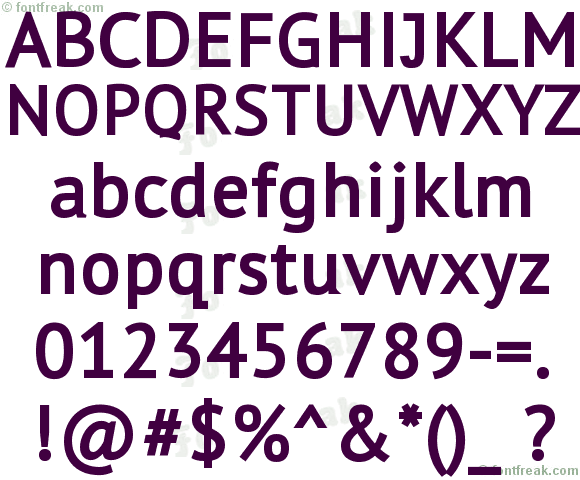
Sheep Sans Bold
Sheep Sans
About Sheep Sans Bold
Sheep Sans Bold, designed by Alvaro Thomaz, is a modern sans-serif typeface that exudes a clean and contemporary aesthetic. With its bold stroke weight and minimalistic design, this font strikes a perfect balance between readability and visual impact. The uniformity of its letters ensures a cohesive look, while the slight spacing gives each character room to breathe, making it ideal for various design applications. The font's simplicity is enhanced by its lack of unnecessary decorative elements, allowing it to adapt seamlessly to different contexts.
This font is particularly well-suited for a range of applications. It can be effectively used in branding materials, such as logos and business cards, where clarity and professionalism are paramount. Additionally, Sheep Sans Bold is an excellent choice for website headers and digital marketing campaigns, as it draws attention without overwhelming the viewer. For print projects, consider using this font in posters, flyers, or even restaurant menus, where its bold presence can highlight key information and capture the audience's interest.
What sets Sheep Sans Bold apart is its ability to convey strength and simplicity simultaneously. Whether you're looking to make a statement or simply need a legible typeface for your projects, Sheep Sans Bold delivers with style. Don't miss the chance to enhance your design toolkit with this exceptional typeface—Sheep Sans Bold font free download is available for all to enjoy.